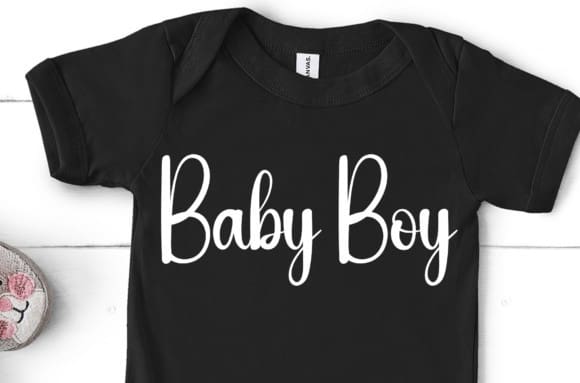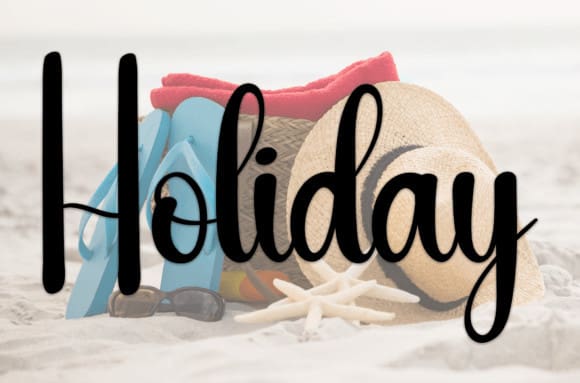
Spring Wedding Font
Spring Wedding Font is a sweet and friendly handwritten font. Creative and versatile, this font is ideal for writing wedding invitations, cards, or any other design that might need a fun touch!